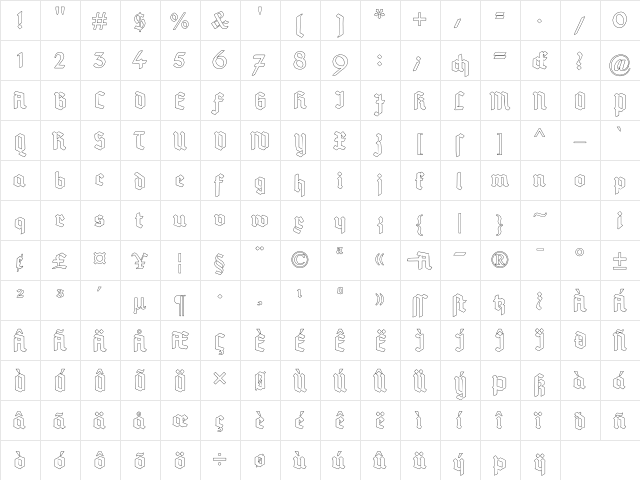
Deutsch-Gotisch Outline Regular
| Designer | Dieter Steffmann, Kreuztal |
Design Context for Deutsch-Gotisch Outline Typeface
Deutsch-Gotisch Outline is built around its visual character rather than neutral utility — its distinctive forms are designed to make an impression at display sizes.
Font Pairing: Pair with a clean neutral sans-serif for body copy to let Deutsch-Gotisch Outline's character lead without overwhelming the composition.
Pro Tip: Use Deutsch-Gotisch Outline exclusively at display sizes — it was designed to be seen, not read at length. Let a neutral companion handle body copy.